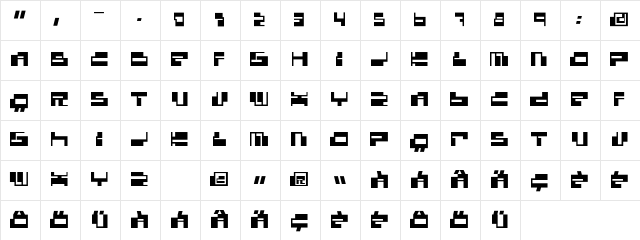
Console Regular Free Font
Console Regular
Design Context for Console
Console is a composed and adaptable typeface that performs quietly and consistently across a wide range of design contexts.